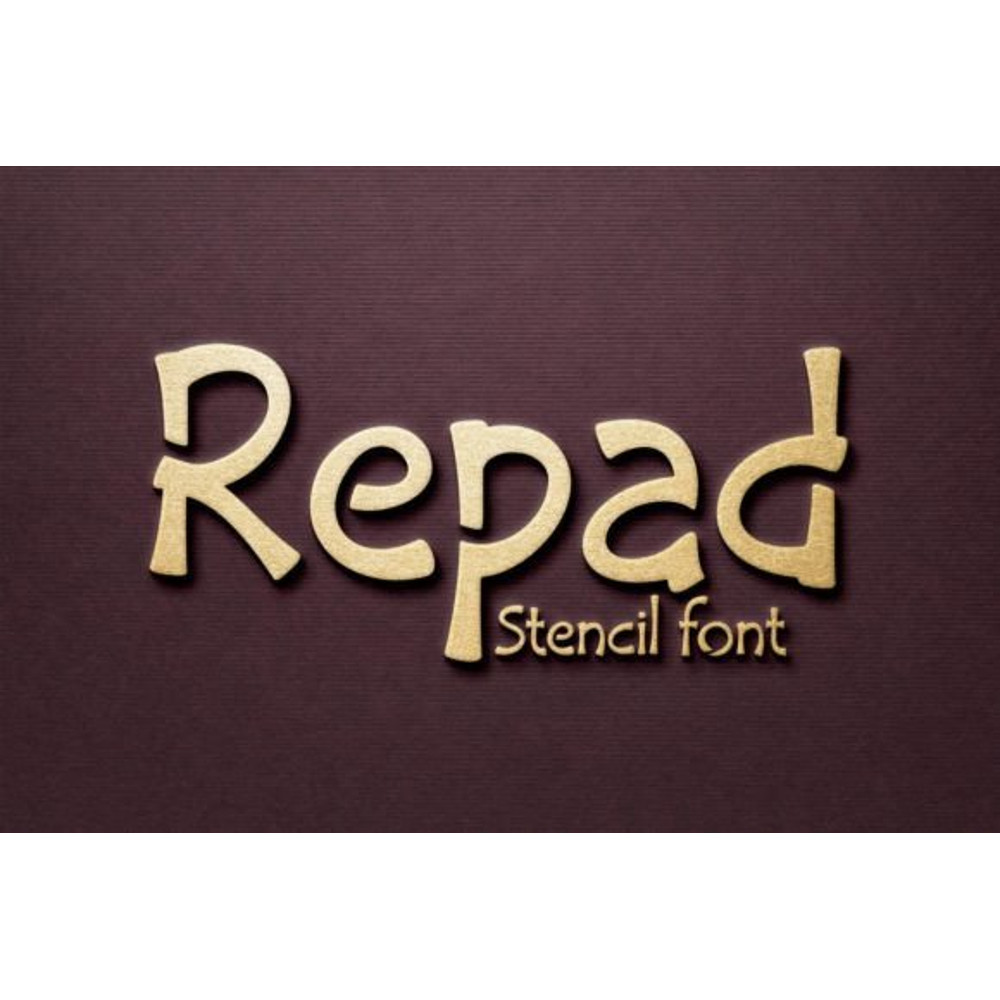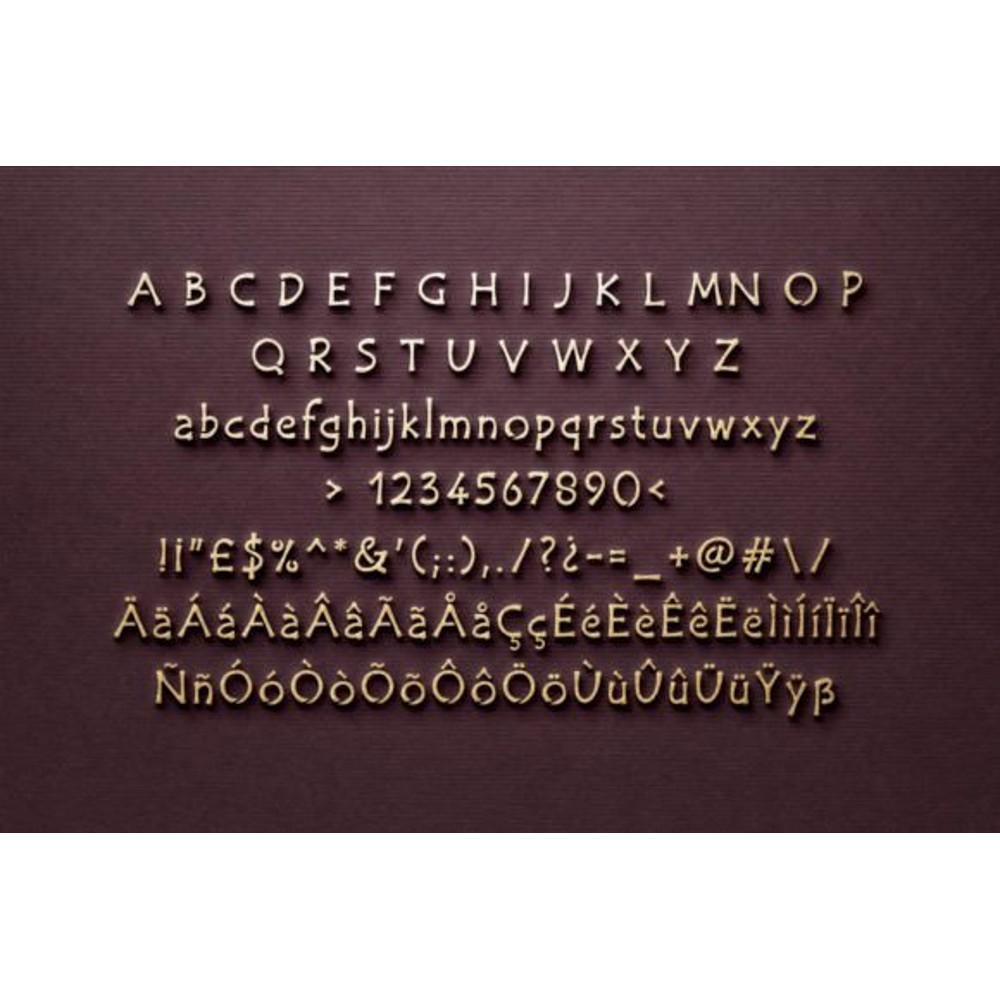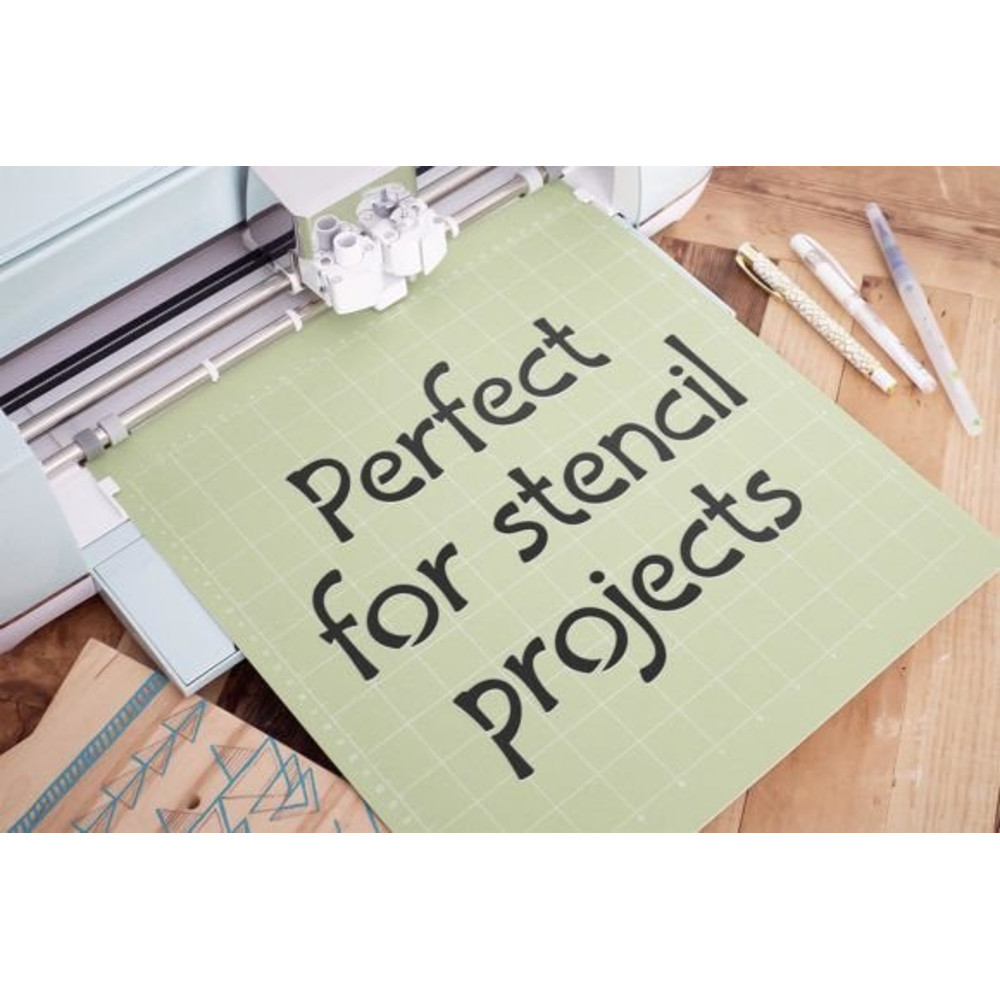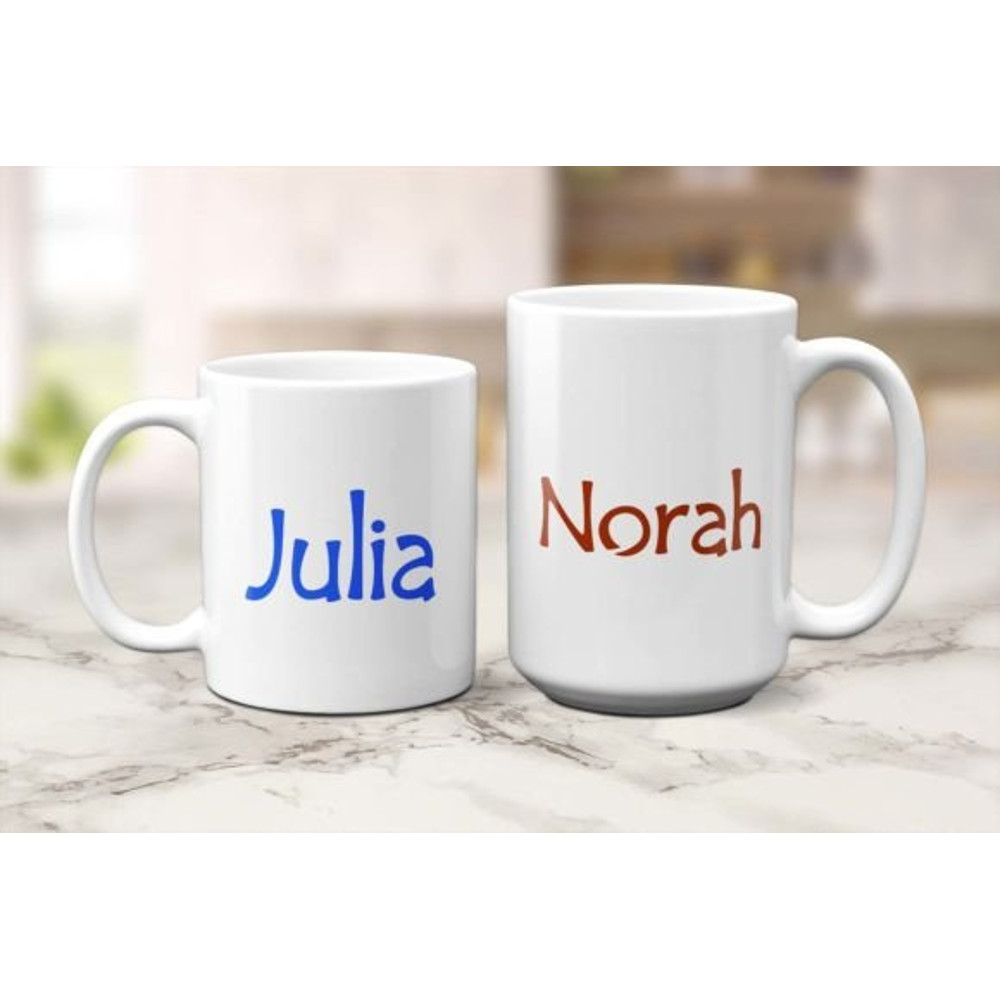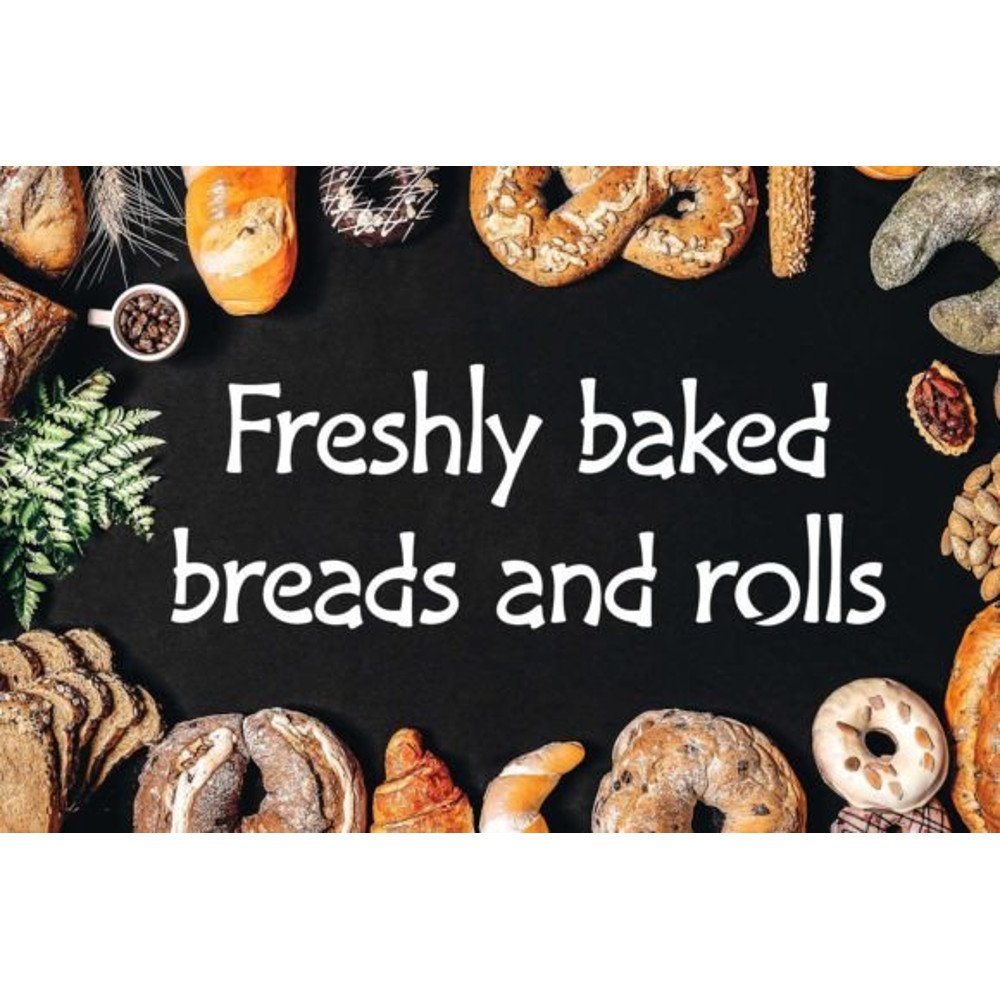
Repad Stencil Font
Repad Stencil is a fun and quirky display font.
It is a perfect choice if you going to use a laser, engraver or other machines, as there are no closed loops on the characters.